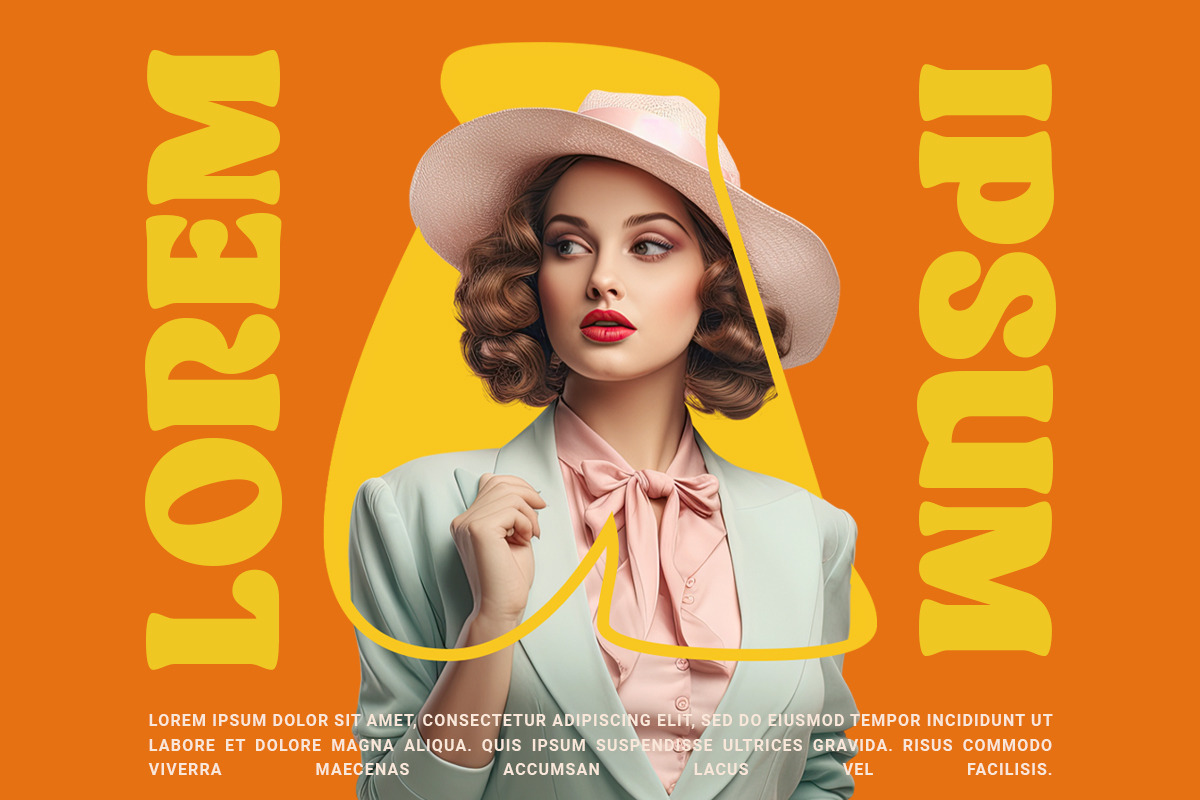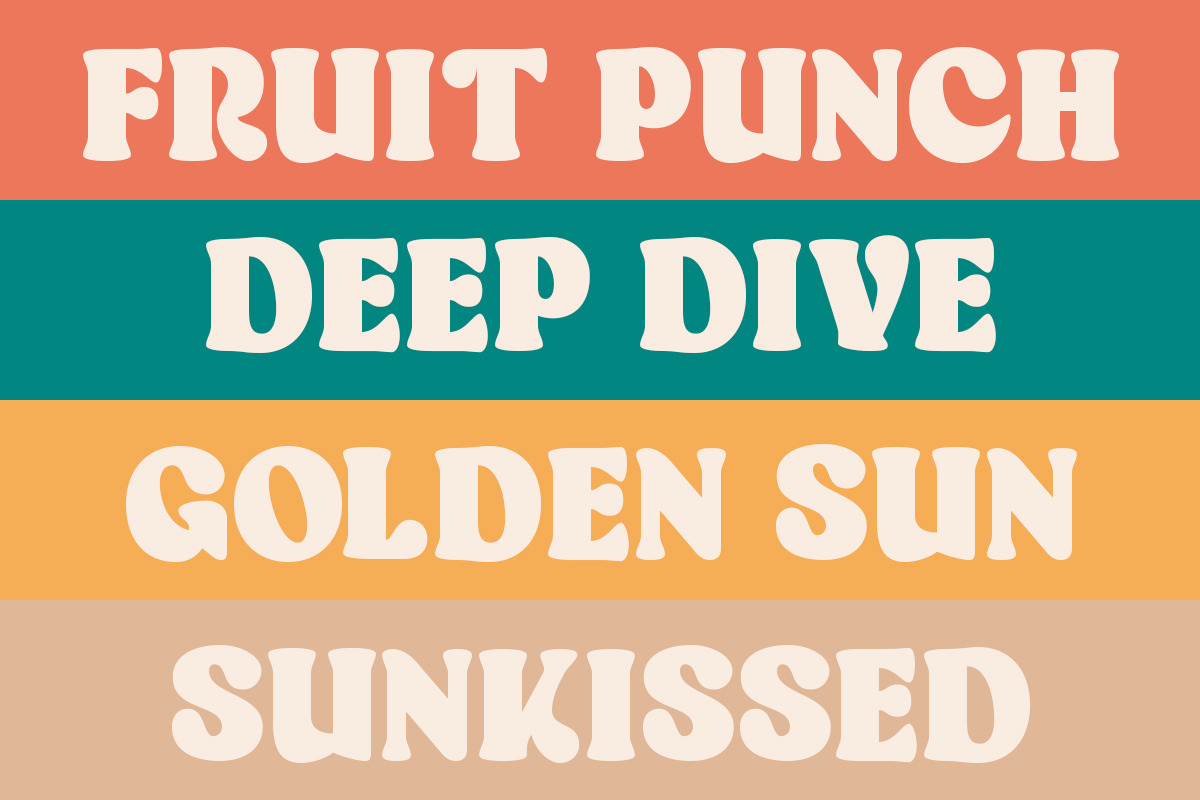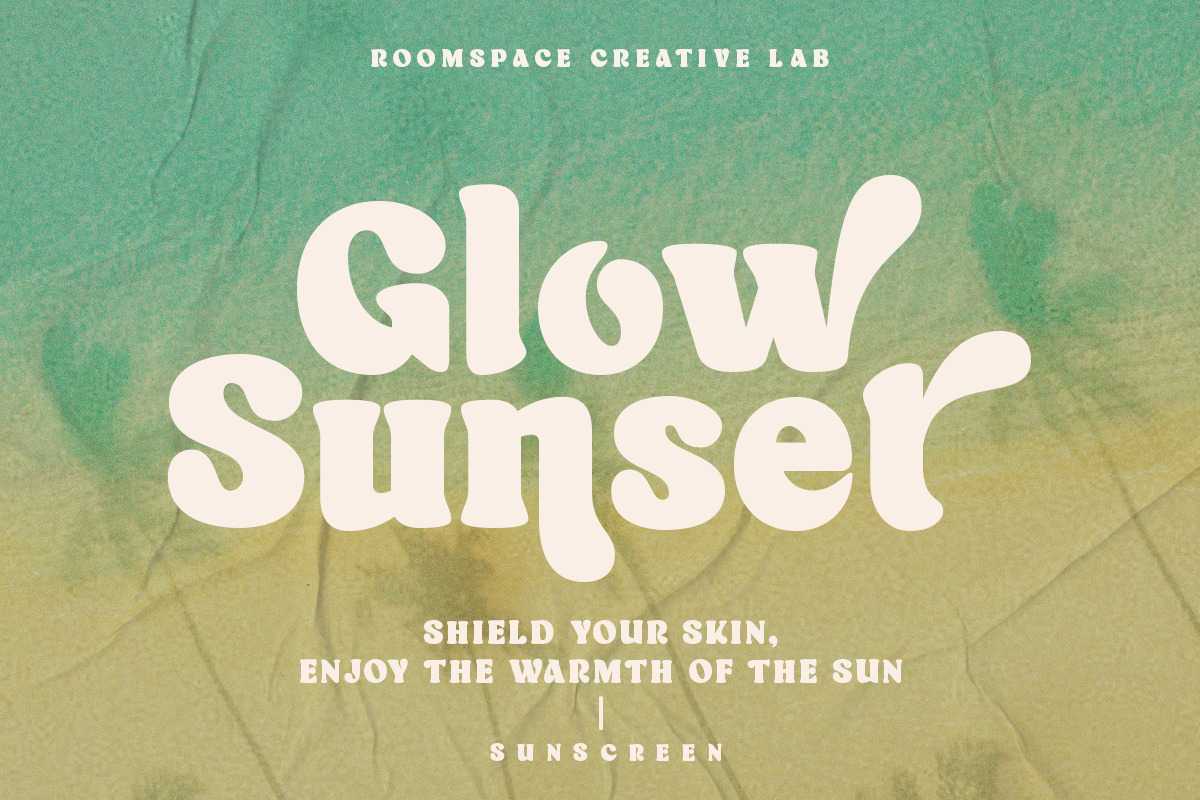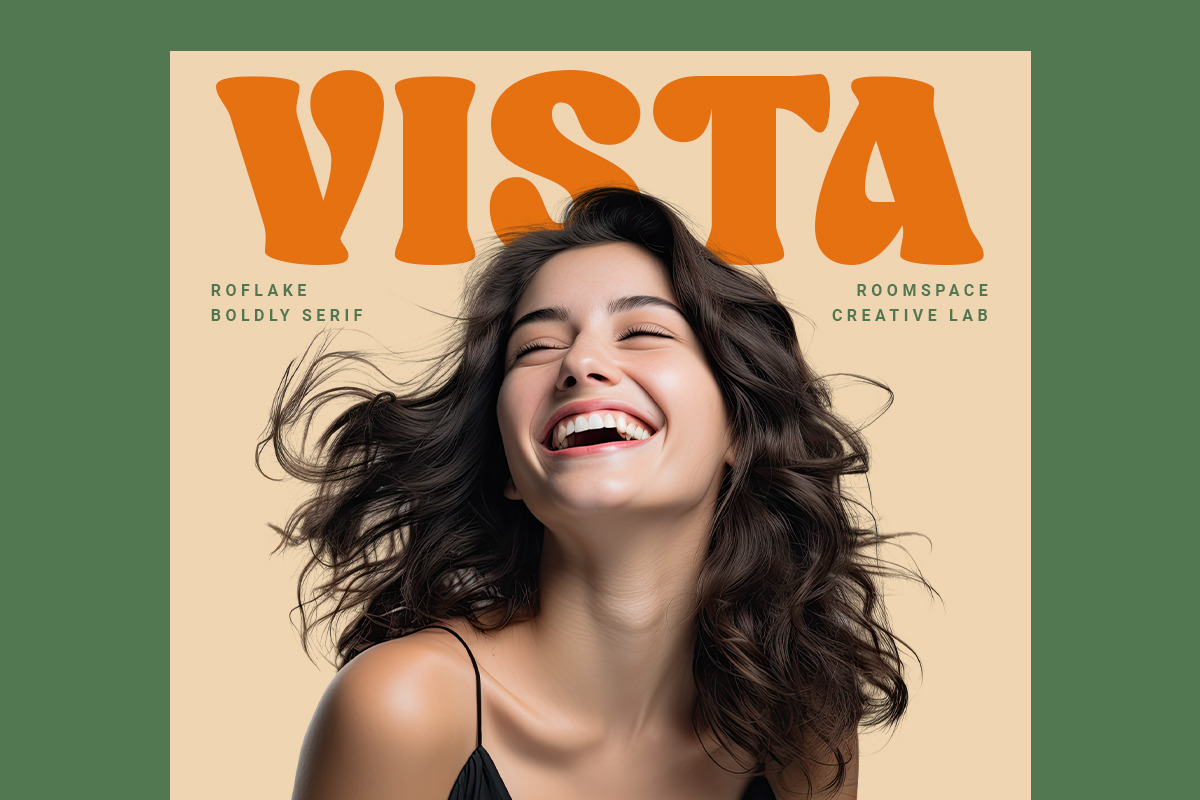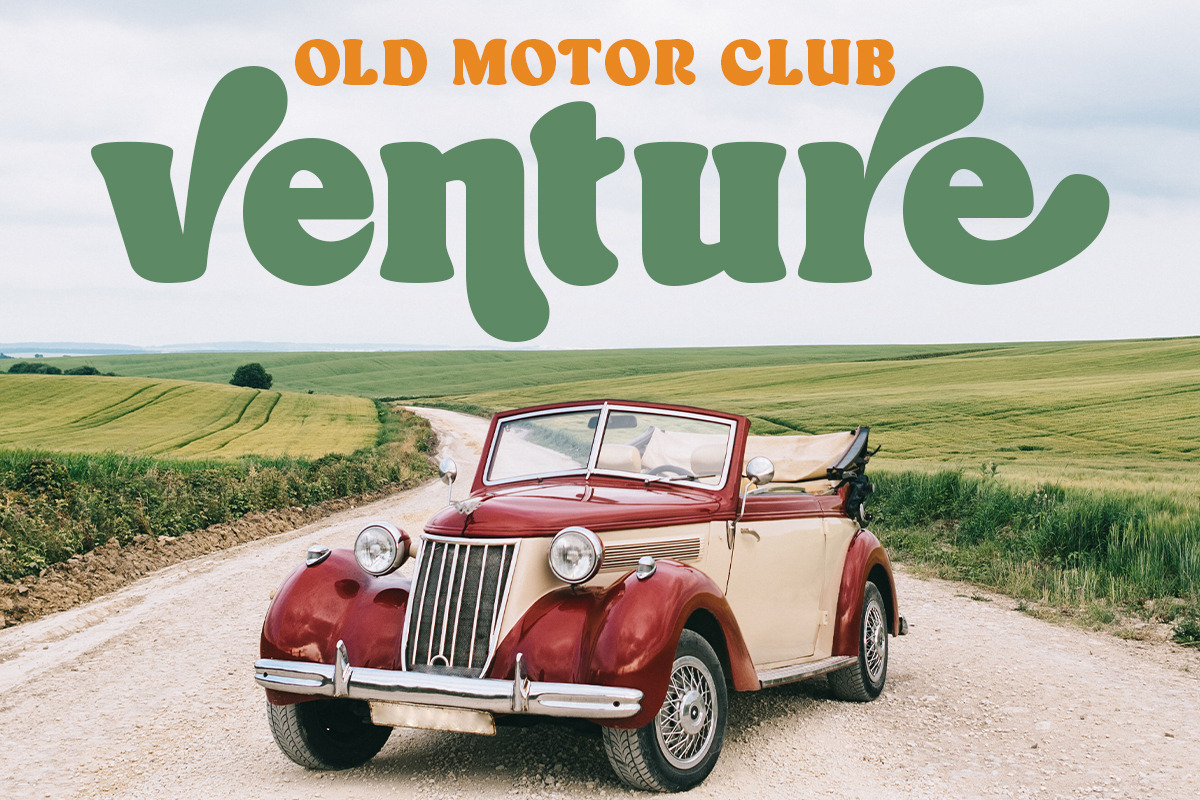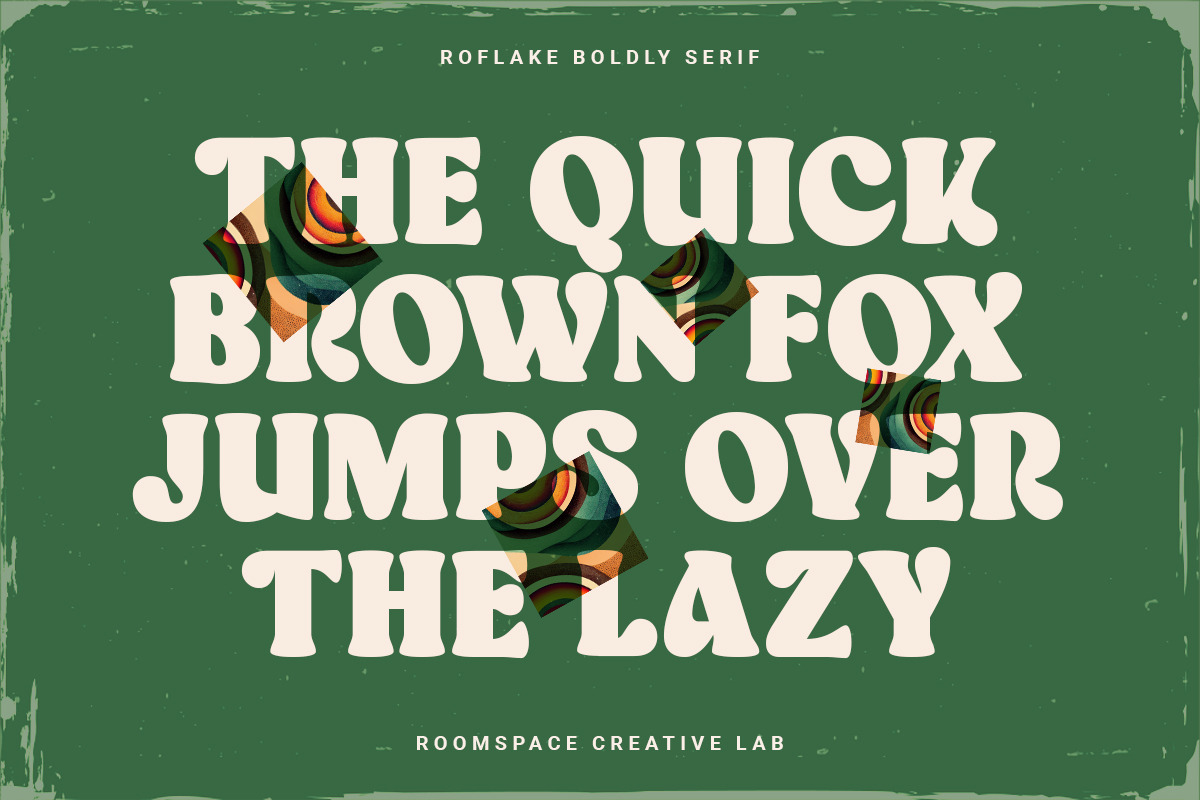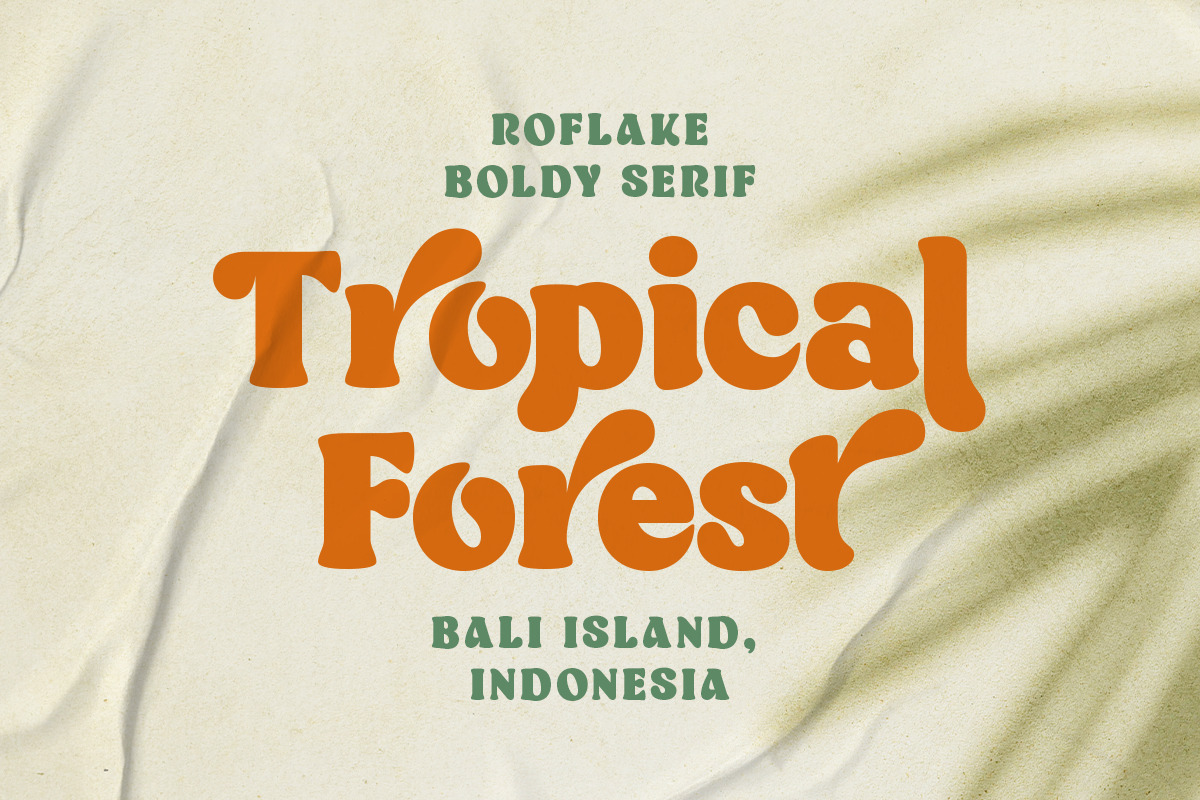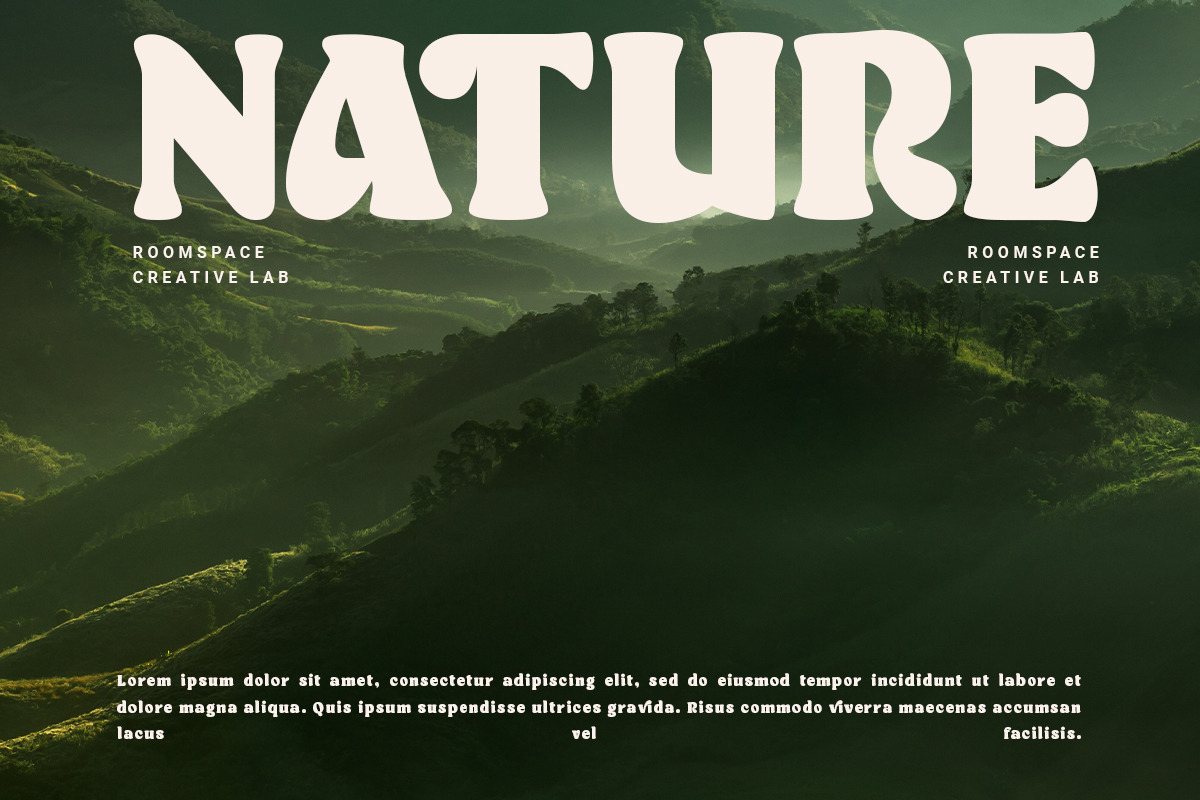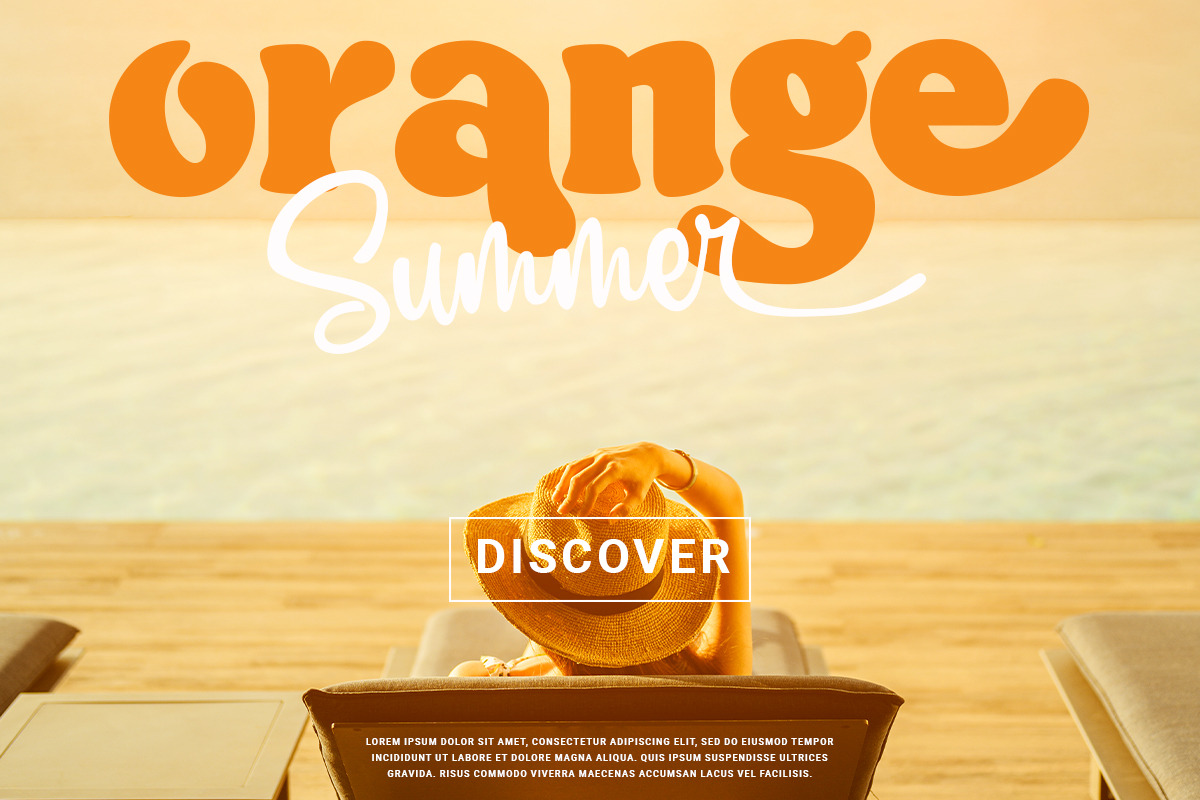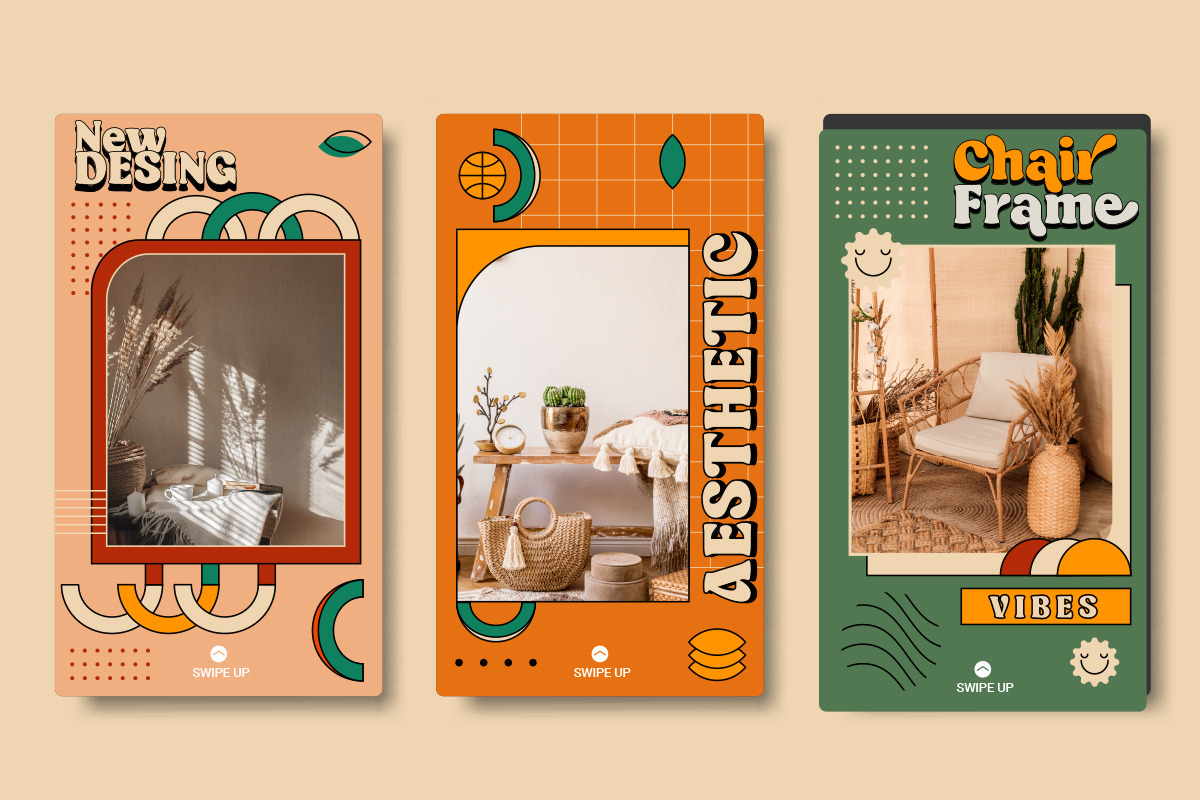
Roflake - Boldly Vintage Style
Roflake font embodies a perfect blend of classic vintage serif style with a touch of modernity through its rounded edges, offering a soft and inviting appearance. Designed with strong clarity, Roflake delivers messages assertively yet retains a gentle charm, making it suitable for various design projects. The regular version of Roflake exudes sturdiness and stability, conveying a sense of reliability and trustworthiness. Its letters are clear and easy to read, while vintage serif details add an elegant touch.